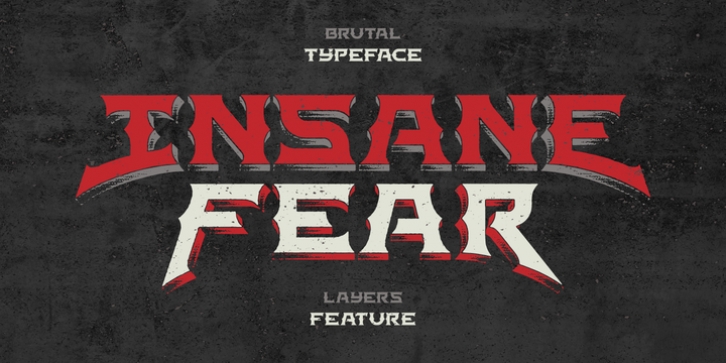
Insane Fear was designed by Gleb Guralnyk and published by Gleb Guralnyk. Insane Fear contains 5 styles and family package options.
Presenting 'Insane Fear' brutal typeface. It includes rough and clean versions with separated font layer of extrude effect. As you see the first and the last characters can be different. Just select the last letter and enable 'Stylistic alternate' feature.
Insane Fear Clean Base·
Insane Fear Clean Extrude·
Insane Fear Rough Base·
Insane Fear Rough Extrude·